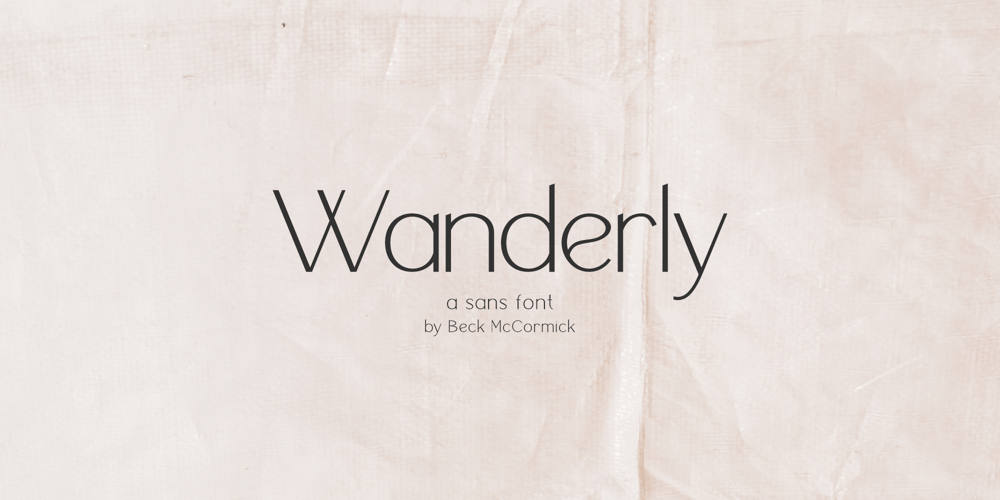
Wanderly Sans Font Family was designed by Beck McCormick and published by BeckMcCormick. Wanderly Sans contains 1 styles and family package options. Introducing Wanderly Sans – Wanderly Sans is a sleek, modern font. Its contemporary aesthetic makes it a perfect fit for effortlessly designing logos & branding, elegant paper products like wedding invitation suites, or for displaying content on your website. Wanderly Sans can also be used for other print design like magazines and flyers or printed marketing materials. This font can also be used for digital marketing materials and social media items!Wanderly Sans includes:- full upper + lowercase characters- numbers + punctuation- 10 alternate characters – A, E, K, M, N, P, R, f, j, t- PUA-encodingExtensive Language Support:Western European, Central European, South Eastern European, South American, Oceanian, Vietnamese, EsperantoWanderly Sans can be used with graphic design programs such as Illustrator or Photoshop, word processing programs like Pages or Word, Design Space, Silhouette, Procreate, Canva Pro, Glowforge, GoodNotes, & more. This font is an installable for desktop & laptop machines, as well as iPads or iPhones. See below for links to help with installation.